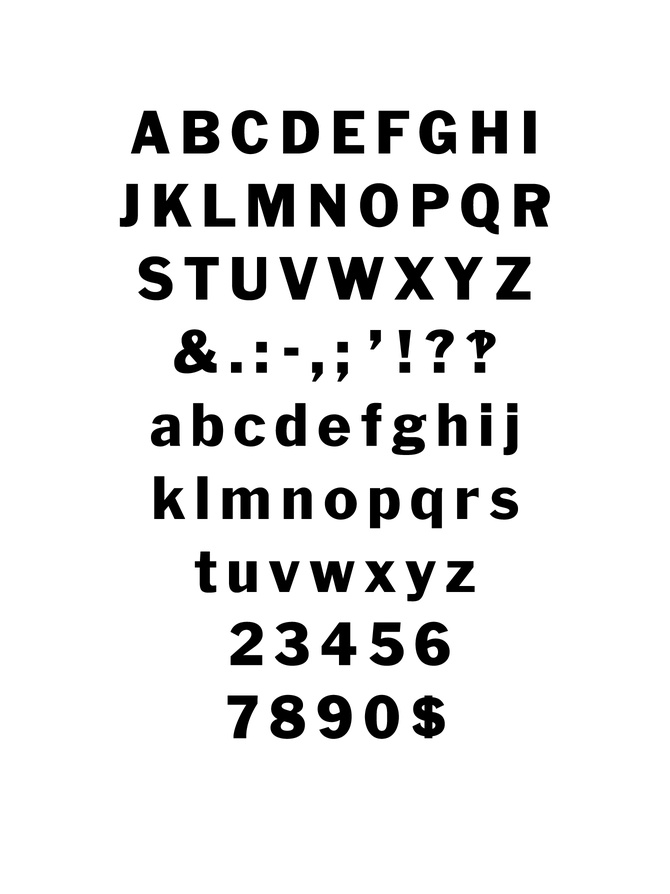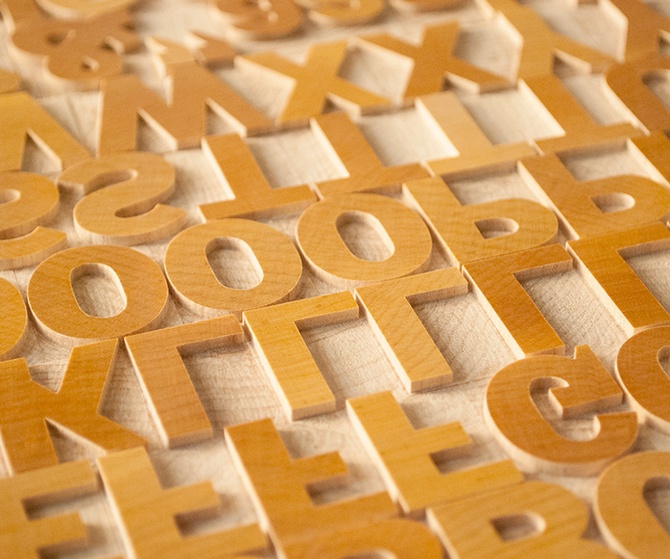
A sturdy font, Franklin Gothic commands attention but doesn't overpower the page. The American Wood Type (AWT) version pays homage to the original metal Franklin Gothic drawn by Morris Fuller Benton for American Type Founders. We're proud to add Franklin Gothic to our catalog.
The AWT patterns for Franklin Gothic are well made, but could've been better in terms of proper typographic design and physical quality. From a typographic perspective, many of the counters were out of proportion to the stroke weight. The pattern edges were rough and inconsistent. The pantograph faithfully reproduces the pattern, so if edges are rough those imperfections are perfectly transferred to the wood type. We didn't discover this until we made a 4A font ourselves. The decision was made to redraw and remake the patterns.
Because the original patterns are type high, we proofed each letter with carbon paper and scanned the letters. Finding the delicate balance of being faithful to the original patterns while improving the typography of each letterform was challenging but not impossible. A local vendor laser cuts the patterns out of 1/8" birch plywood, and we nail the patterns to 3/4" birch plywood.